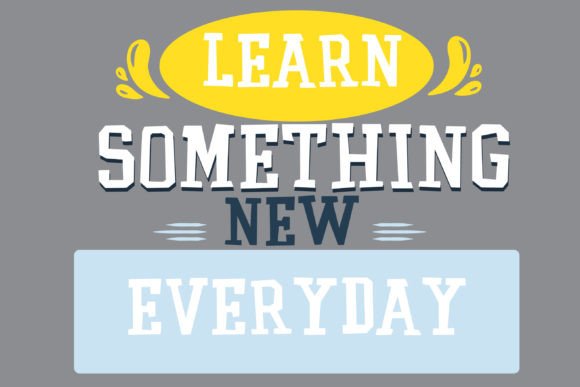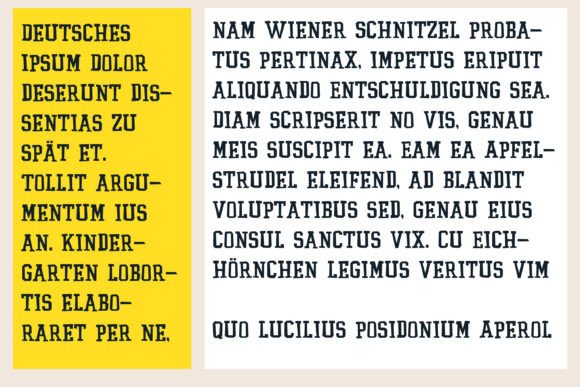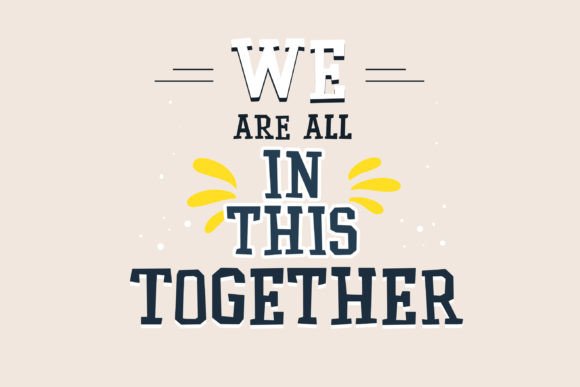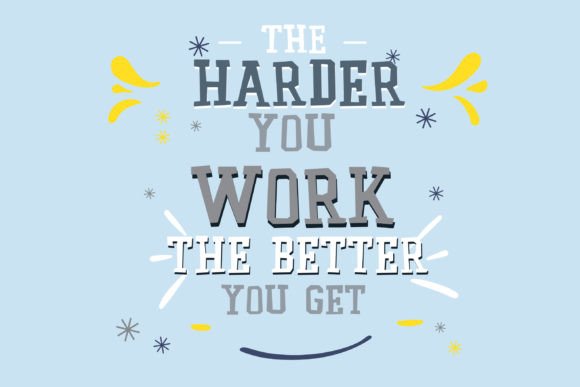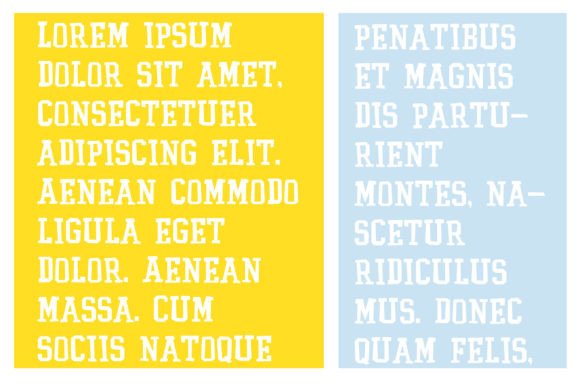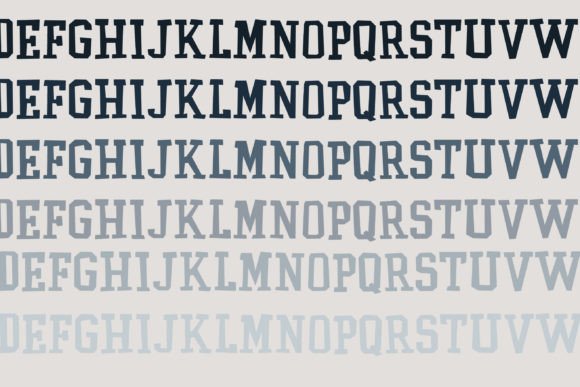
Introduction to Sign My Yearbook Font
This hand-crafted font is a typical letterman font but much more crafty.
Bold version included A hand-crafted font is a font that is designed to look like it was written by hand.
Key Features of Sign My Yearbook Font